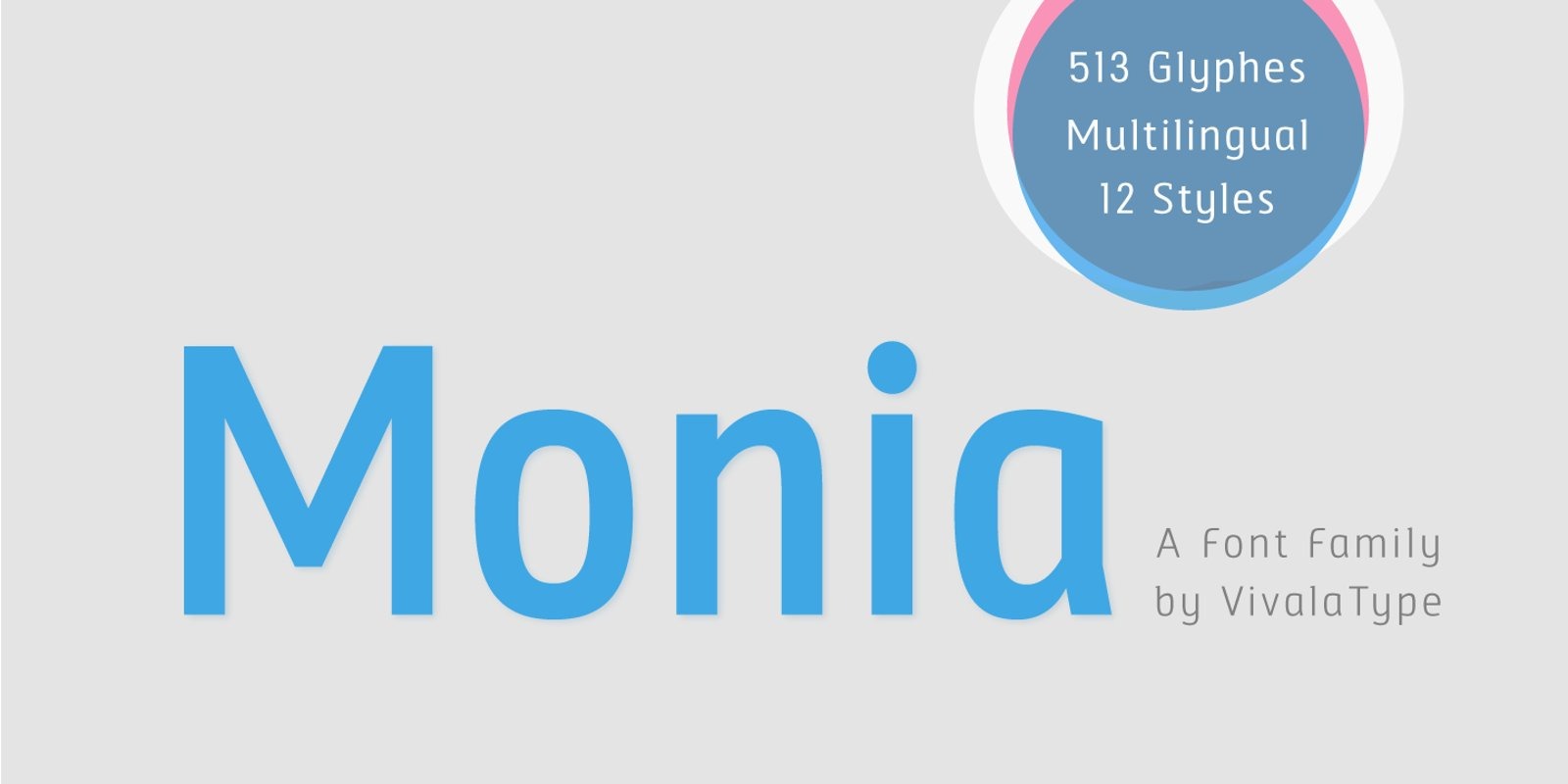
Monia Font Family
Monia Font Family is a premium-quality font developed to enhance your work with a polished, modern, and visually elevated look. Monia is a modern grotesque typeface family designed as a copy and display typeface. With its range of twelve weights, true italic weights, it offers a wide variety of design possibilities such as posters, magazine, corporate or packaging.
Designer: Johannes Hoffmann